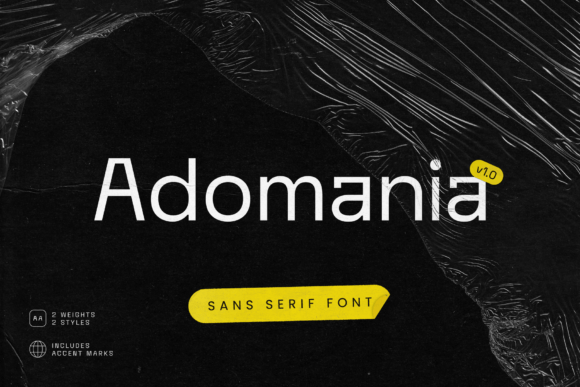
The Future is Now: Introducing Adomania Font
Have you ever been working on a design project and suddenly, the perfect font pops into your head? It’s like a lightbulb moment that makes all the difference. For designers, finding that one font that elevates their work to the next level can be a game-changer. And that’s exactly what the Adomania Font does – it adds a touch of excitement to even the most straightforward designs.
Adomania Font is a professional sans serif font that’s perfect for branding projects, web design, logos, headings, and short-form editorial work. With 2 weights and 2 styles, plus a range of symbols and accents, this font has got you covered. And the best part? It’s not just a pretty face – Adomania Font is also designed with accessibility in mind.
So, what does “Adomania” mean? It’s the sense that the future is arriving ahead of schedule, and that’s exactly what this font brings to your designs – a sense of forward-thinking and innovation.
Key Features of Adomania Font
- Font Style: Adomania Font is a sans-serif font with a modern and minimalist design, perfect for digital and print media.
- Character Set: Includes a wide range of characters, including Latin, Cyrillic, and Greek alphabets, making it suitable for multilingual projects.
- Unique Characteristics: Features a unique blend of modern and classic elements, making it an ideal choice for projects that require a unique visual identity.
Adomania Font Review
Overall, I’m impressed with the Adomania font. It’s a great addition to any designer’s toolkit, especially for those looking for a bold, eye-catching font. ✨
- Unique design: The Adomania font has a distinct, futuristic look that’s sure to grab attention. ✨
- Wide range of uses: From headings to body text, this font is versatile and can be used in a variety of contexts. ✨
- Easy to read: Despite its bold appearance, the font is still easy to read, even at smaller sizes. ✨
- Overuse: While the font is unique, it can quickly become overwhelming if used too much. ⚠️
- Not ideal for small text: While it’s readable at smaller sizes, the font can still be challenging to read in very small text. ⚠️
Overall, I’m a fan of the Adomania font. It’s a great choice for designers looking to add some visual interest to their work, but it’s not without its limitations. With careful use, it can be a powerful tool in any designer’s toolkit.
Adomania font is ideal for creating eye-catching titles, headings, and captions. It’s perfect for use in social media graphics, presentations, and marketing materials. To get the most out of it, use it sparingly to create a bold and striking visual impact.
Tips
For the best results, use Adomania font in combination with bold colors and contrasting backgrounds. Experiment with different font sizes and styles to create a unique visual effect.